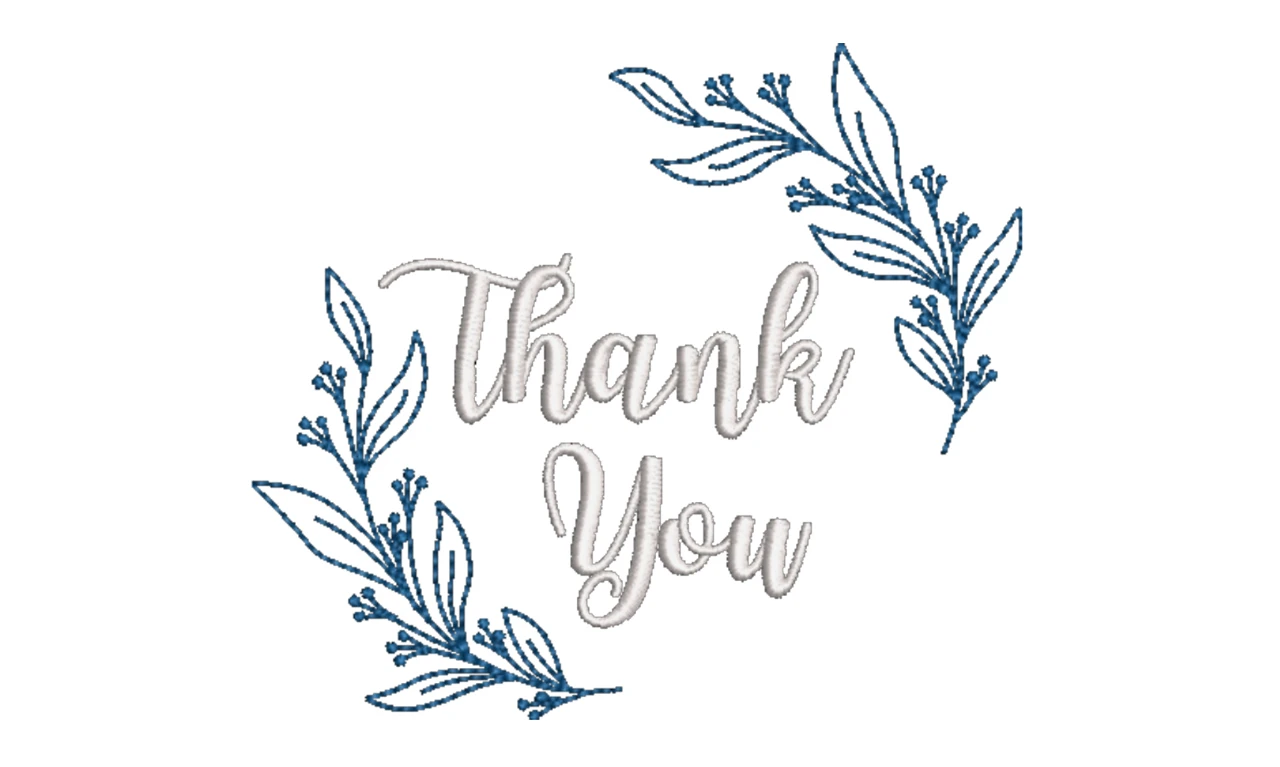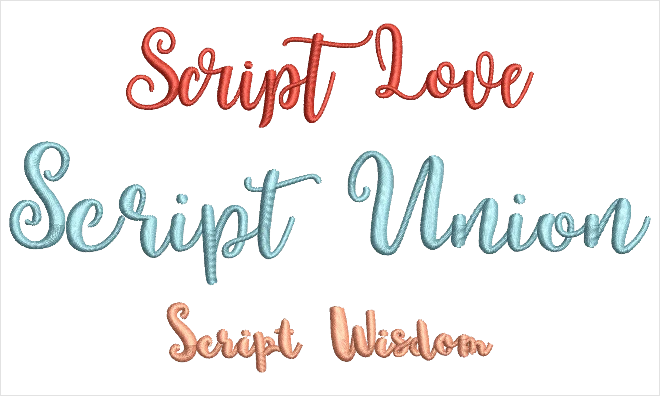
A collection of modern satin script fonts that look like they are a style of handmade calligraphy. There is a font that will work for small, medium, or large letters. You will use this collection for towels, baby items, personalizing, and initials. It will become one of your “go to” font packs.